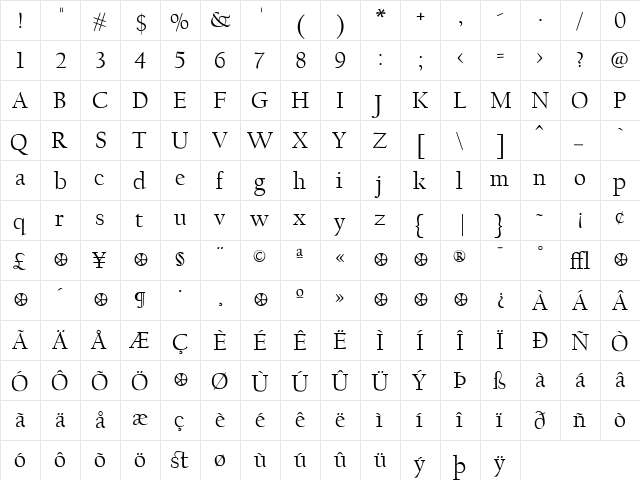
FBCalifornian Regular
Design Context for FBCalifornian Typeface
FBCalifornian takes a measured approach to typography — its balanced proportions and neutral character make it a reliable workhorse for both digital and print work.